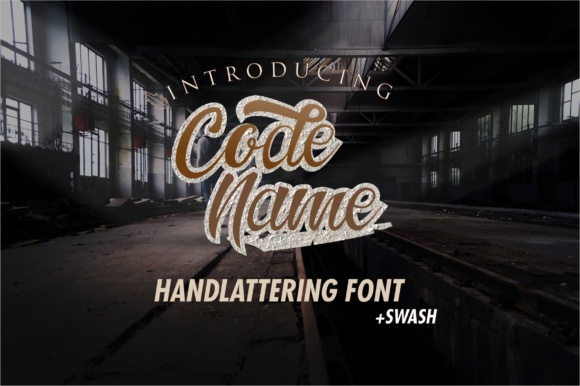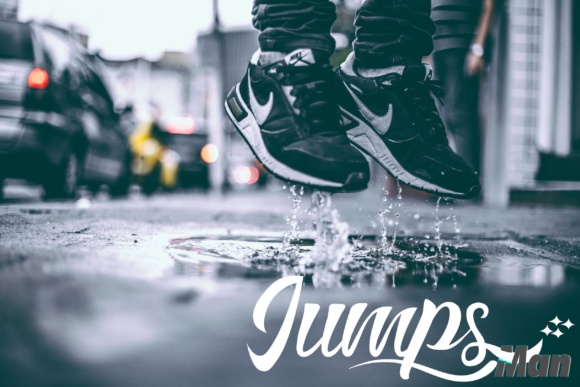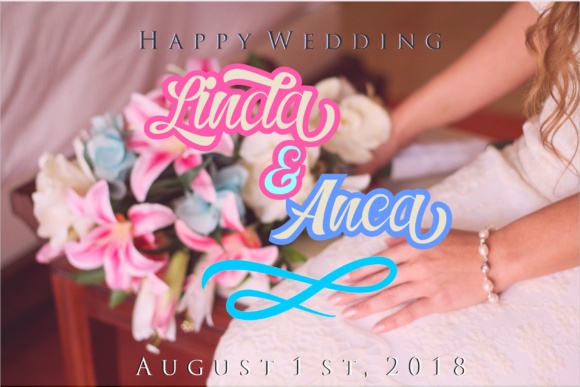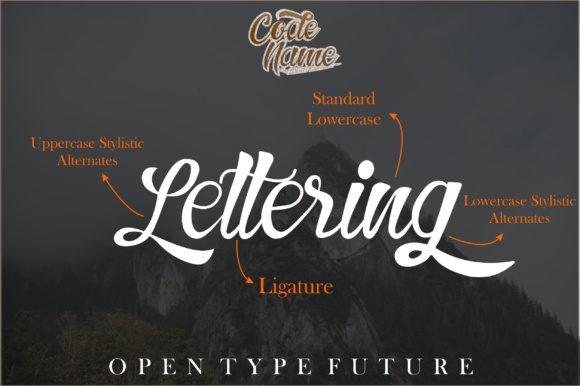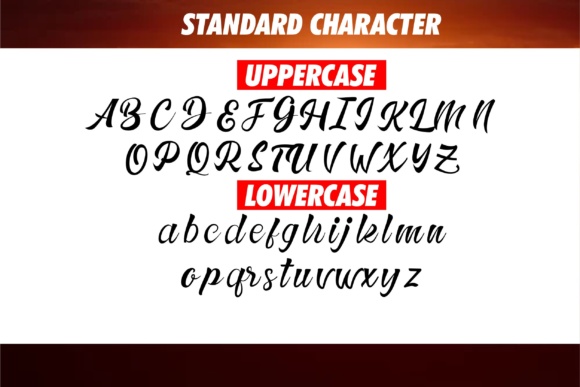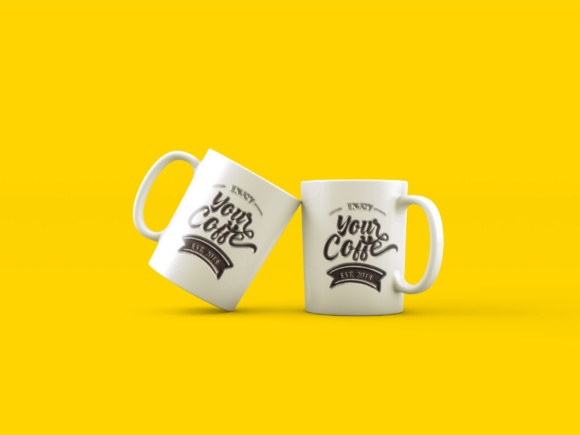
About Codename Font
The Codename is a striking handpainted typeface. Itβs two styles are perfect for letterheads, vintage apparel designs, headlines, logotypes, posters, cards, and much more!